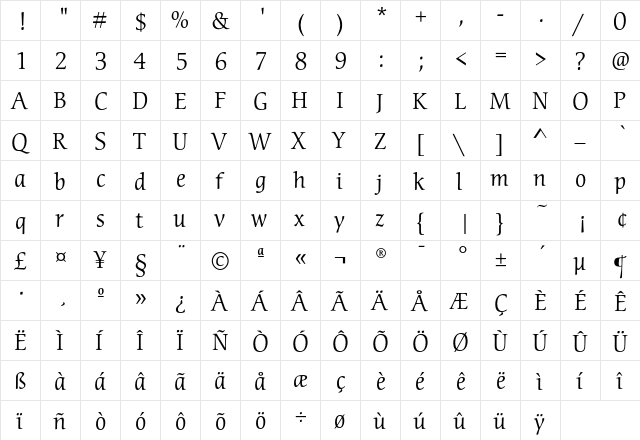
CerigoEF Book Font Preview
CerigoEF Book
Design Context for CerigoEF Typeface
CerigoEF is a composed and adaptable typeface that performs quietly and consistently across a wide range of design contexts.